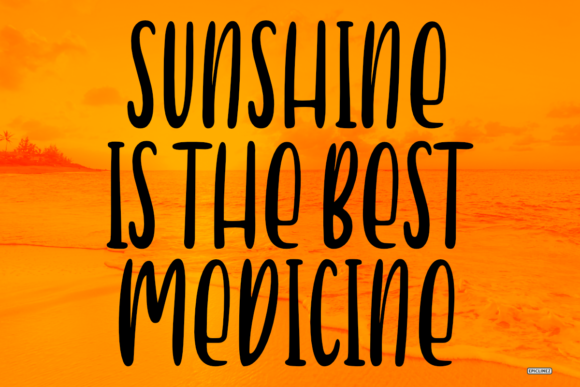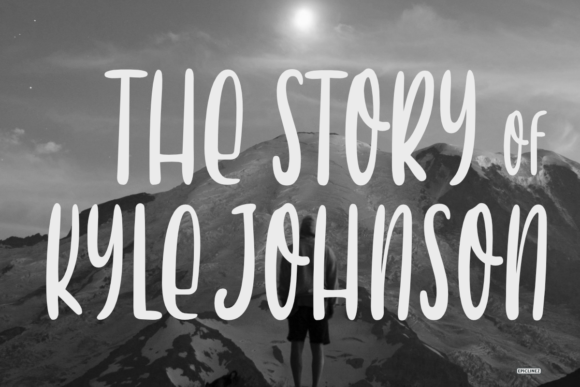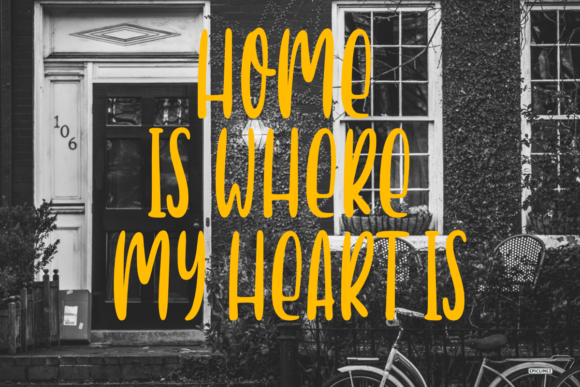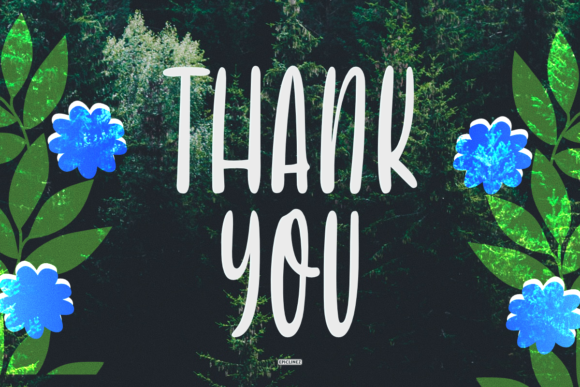
Introduction to Peak Season Font Font
Fonts play a crucial role in design, and the Peak Season Font font is a typeface that brings both character and versatility to any project. Whether you’re working on a branding project, a website, or a print design, the Peak Season Font font offers a unique style that can elevate your work.
| 📌 Font Name | Peak Season Font |
| 👤 Author | Epiclinez |
Peak Season is a smooth handwritten font.
It has a unique style that makes it suitable for displays, quotes, apparels and various handcrafting projects .
Key Features of Peak Season Font Font
Why Choose Peak Season Font Font?
The Peak Season Font font is more than just a typeface – it’s a design tool that helps you communicate your message with style and clarity. Its unique character set and versatile design make it suitable for a wide range of applications, from elegant invitations to bold headlines.
With its carefully crafted letterforms and balanced proportions, the Peak Season Font font ensures readability and visual appeal across all mediums.
What makes Peak Season Font font special?
The Peak Season Font font stands out with its unique design, exceptional readability, and versatility across various design applications.